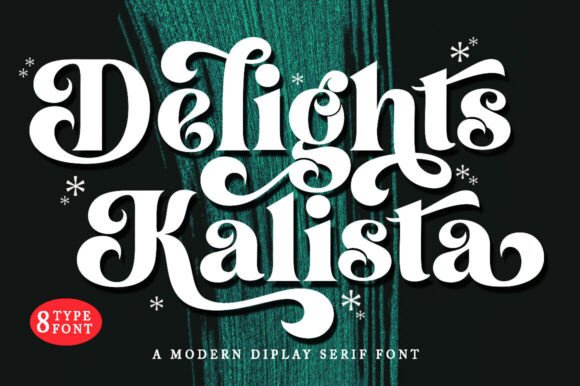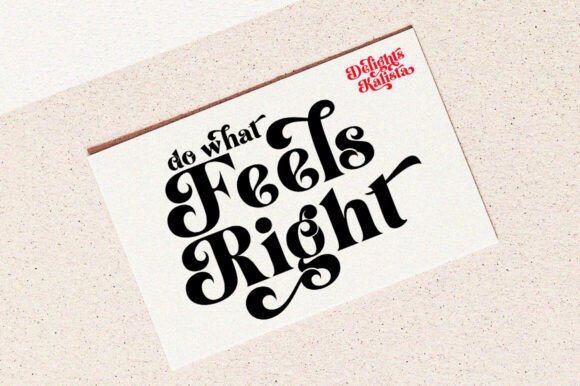
Delights Kalista Font
Delights Kalista is a beautiful and versatile serif font. This font is characterized by a serif style with a luxurious style in a modern form, but also a friendly and cheerful style in bold, Delights Kalista has glyphs to give crafters more choices in designing. This modern style will make a design appear more classy, elegant, unique and edgy.